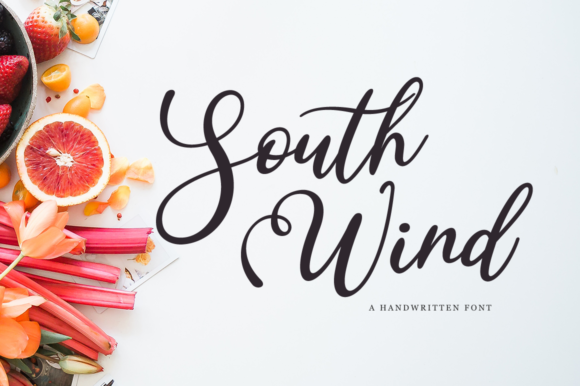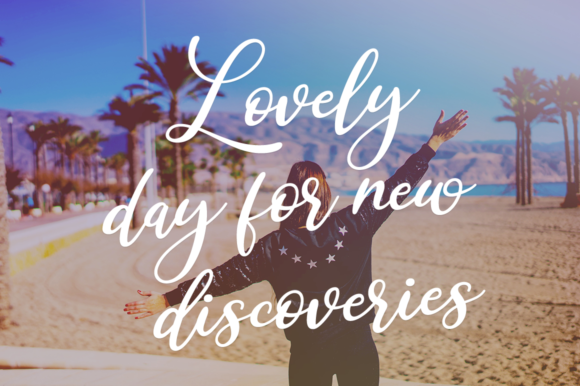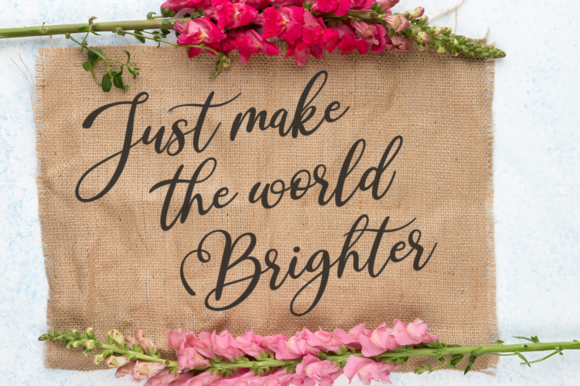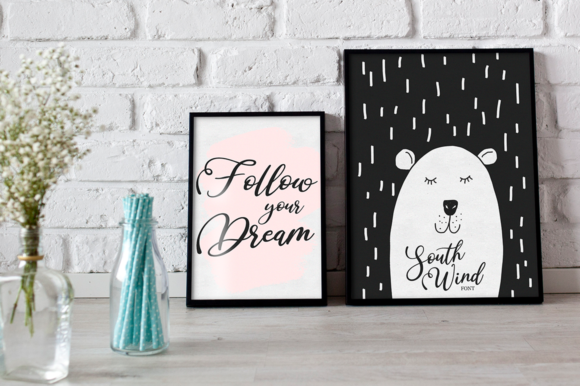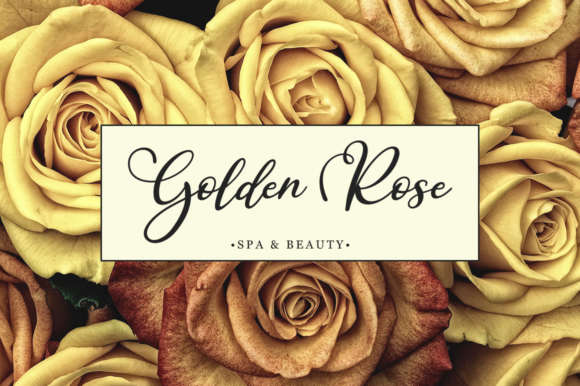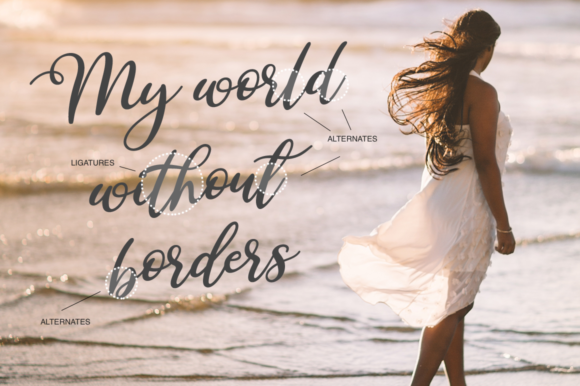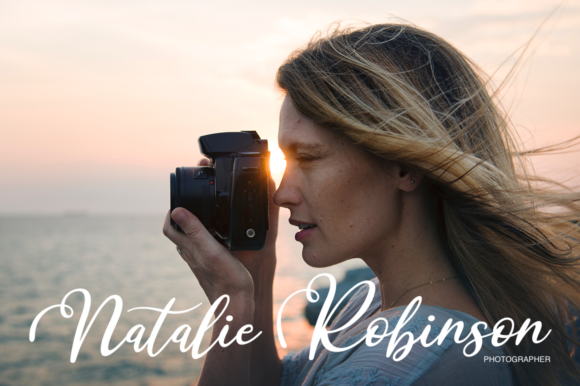
South Wind Font
About South Wind Font
The South Wind is a fresh handmade font. It’s ideal for branding and decorating your projects, but can also be perfectly used for wedding invitations and much more!